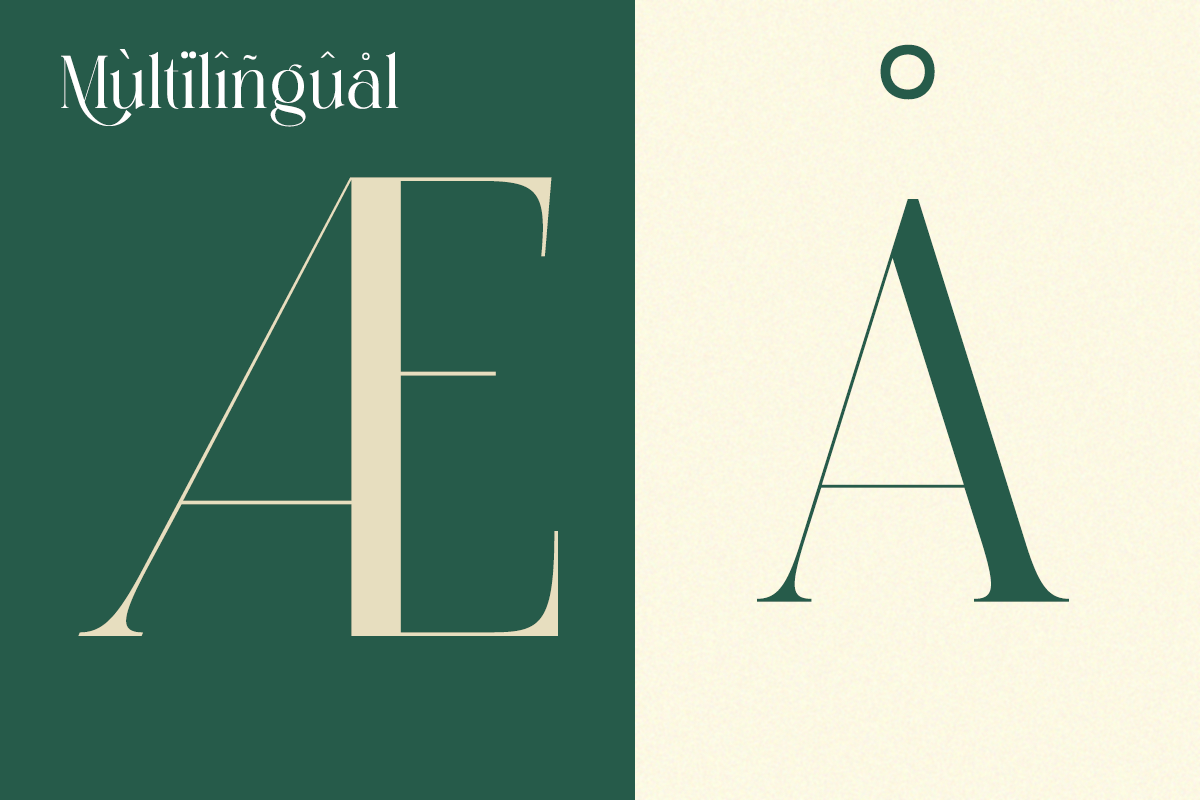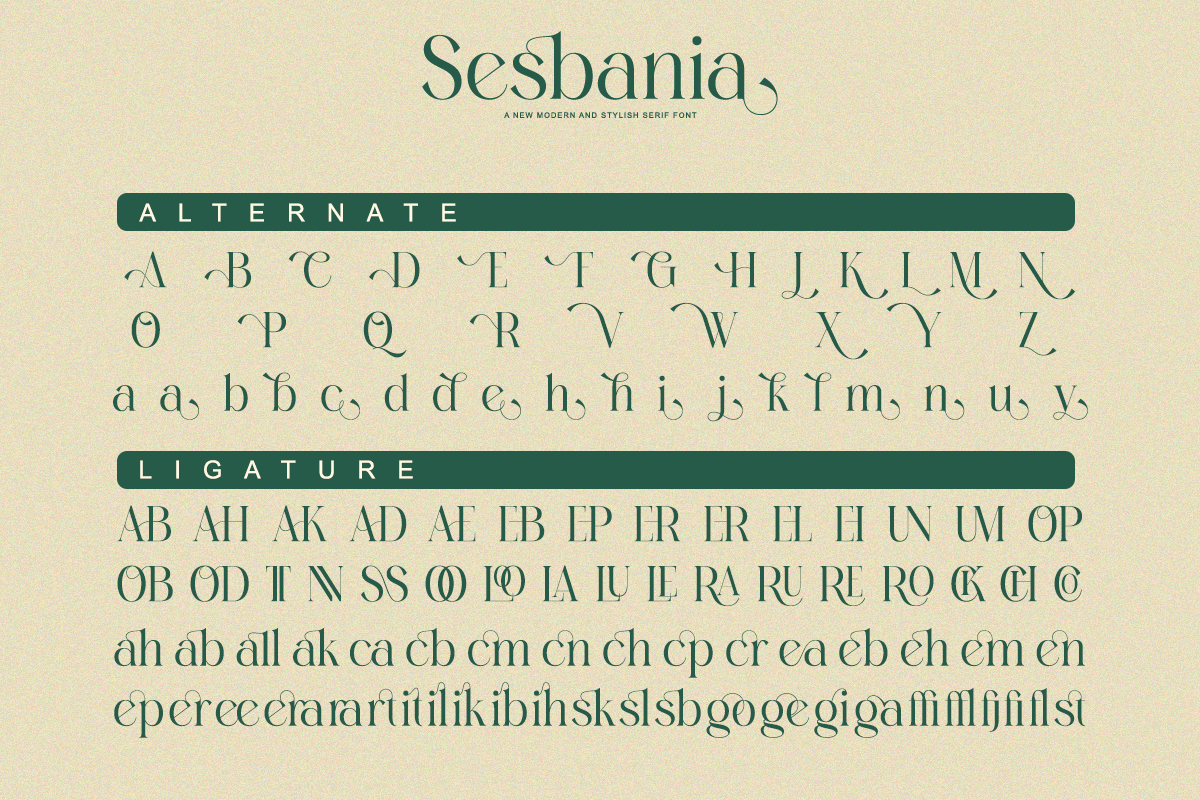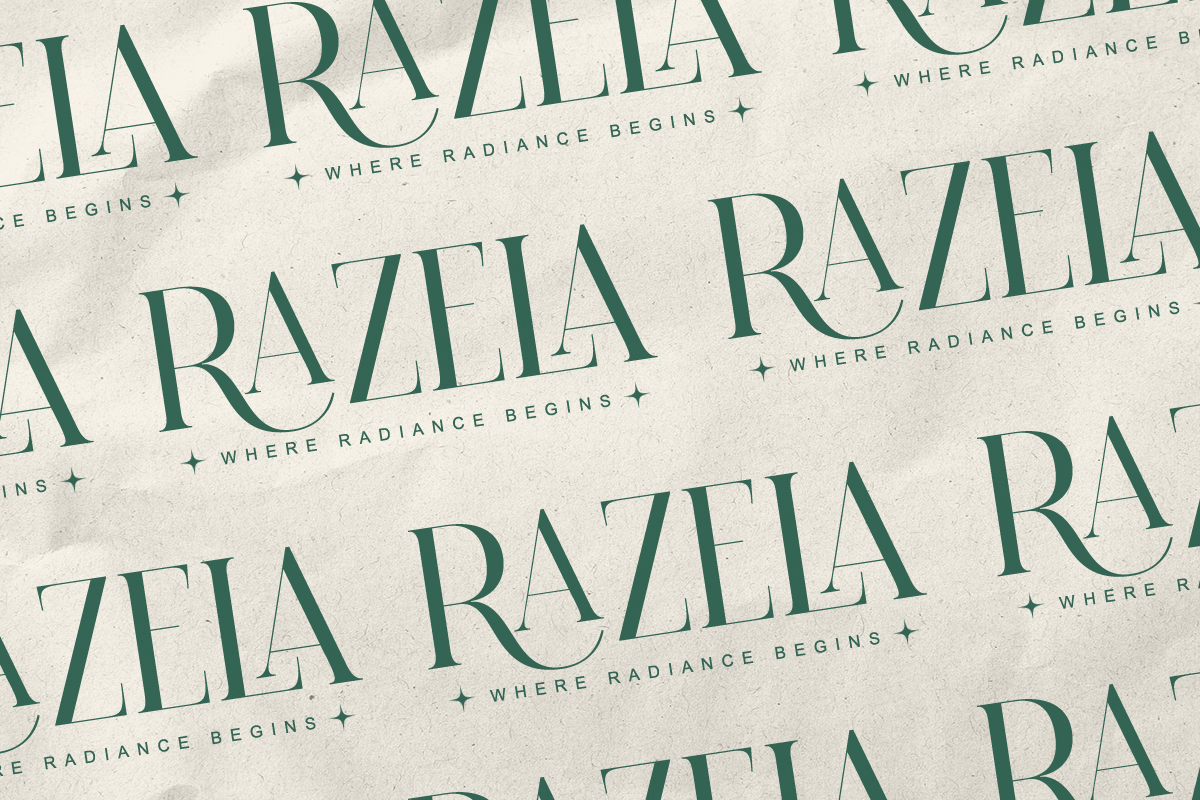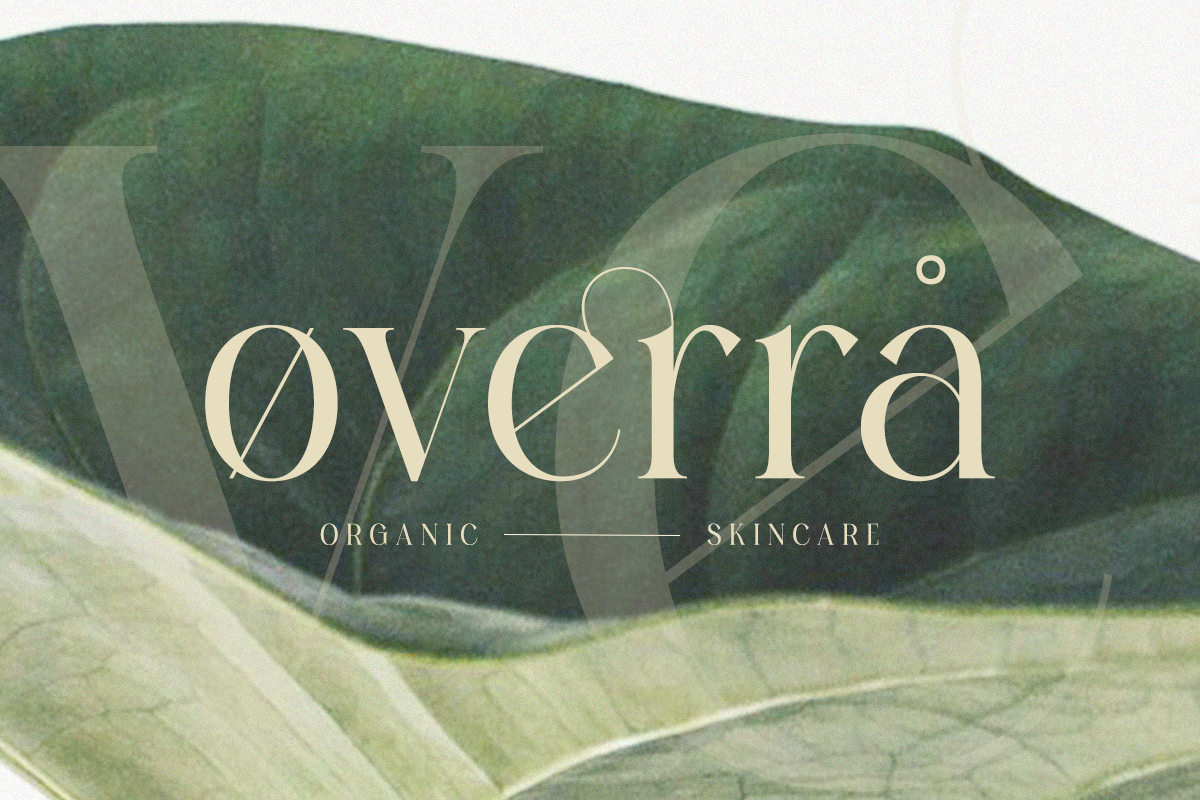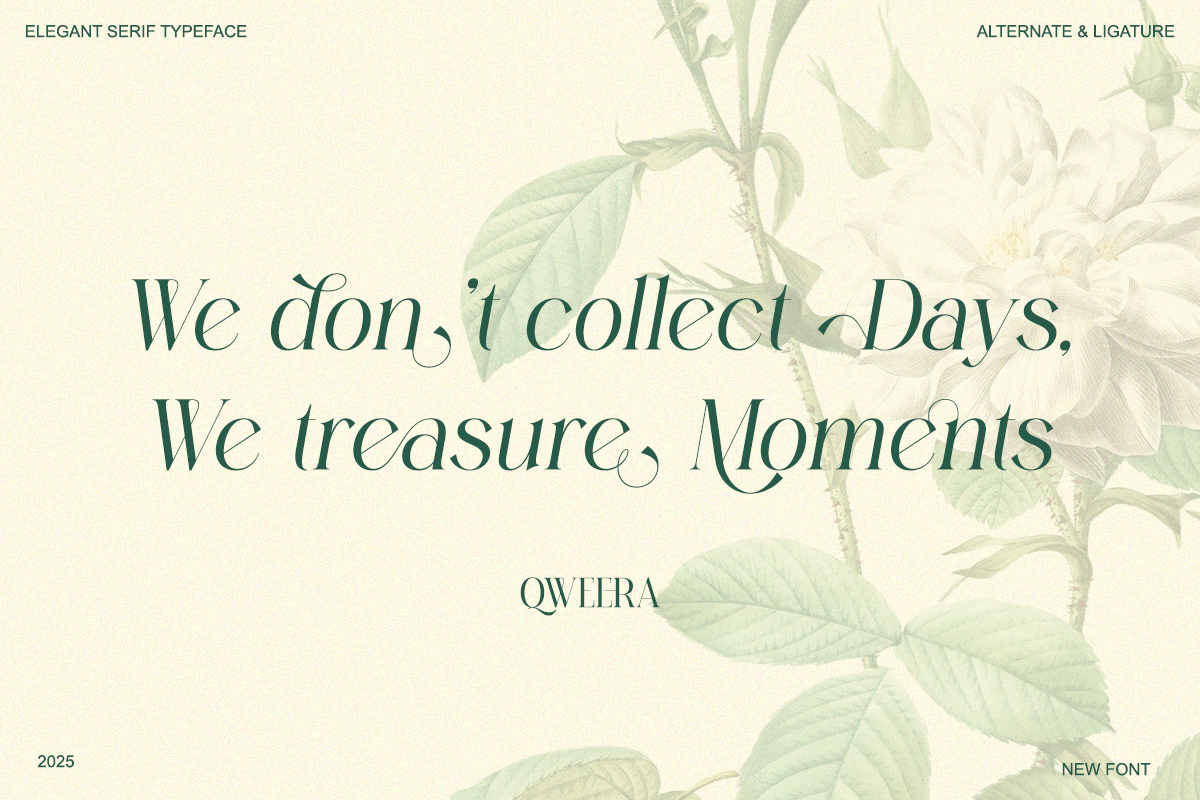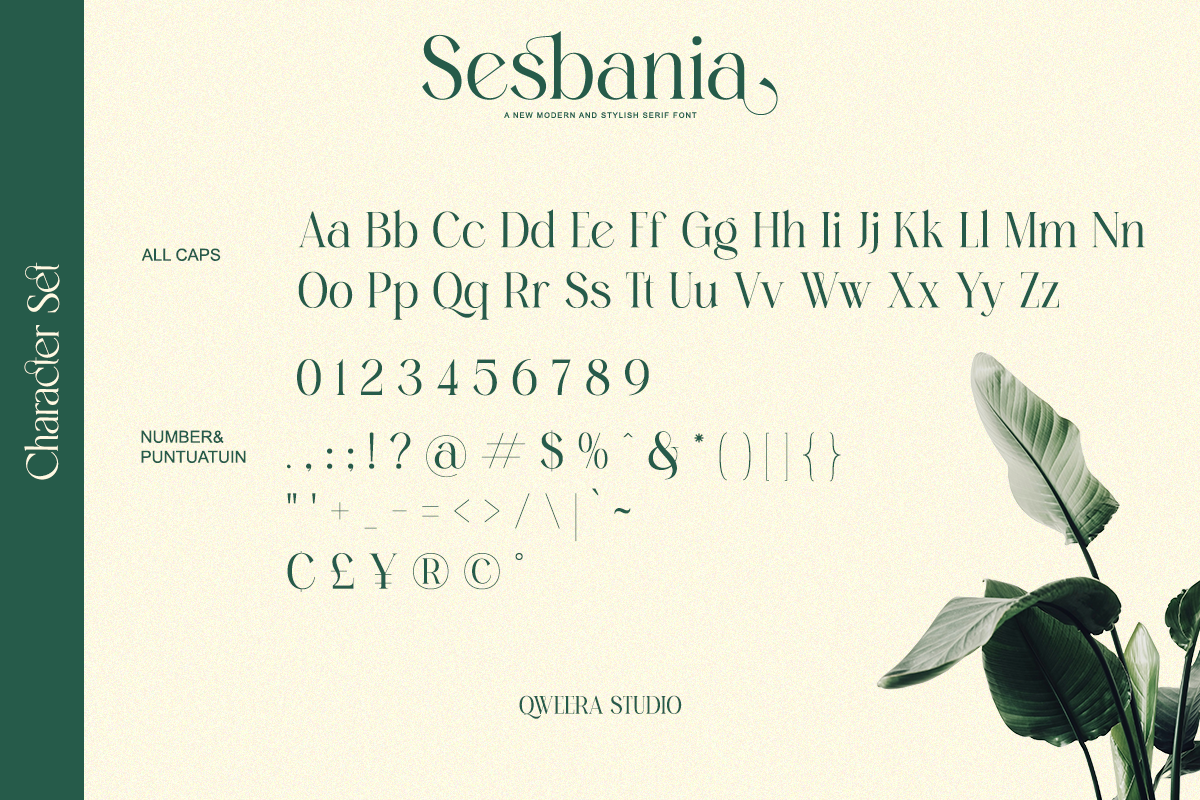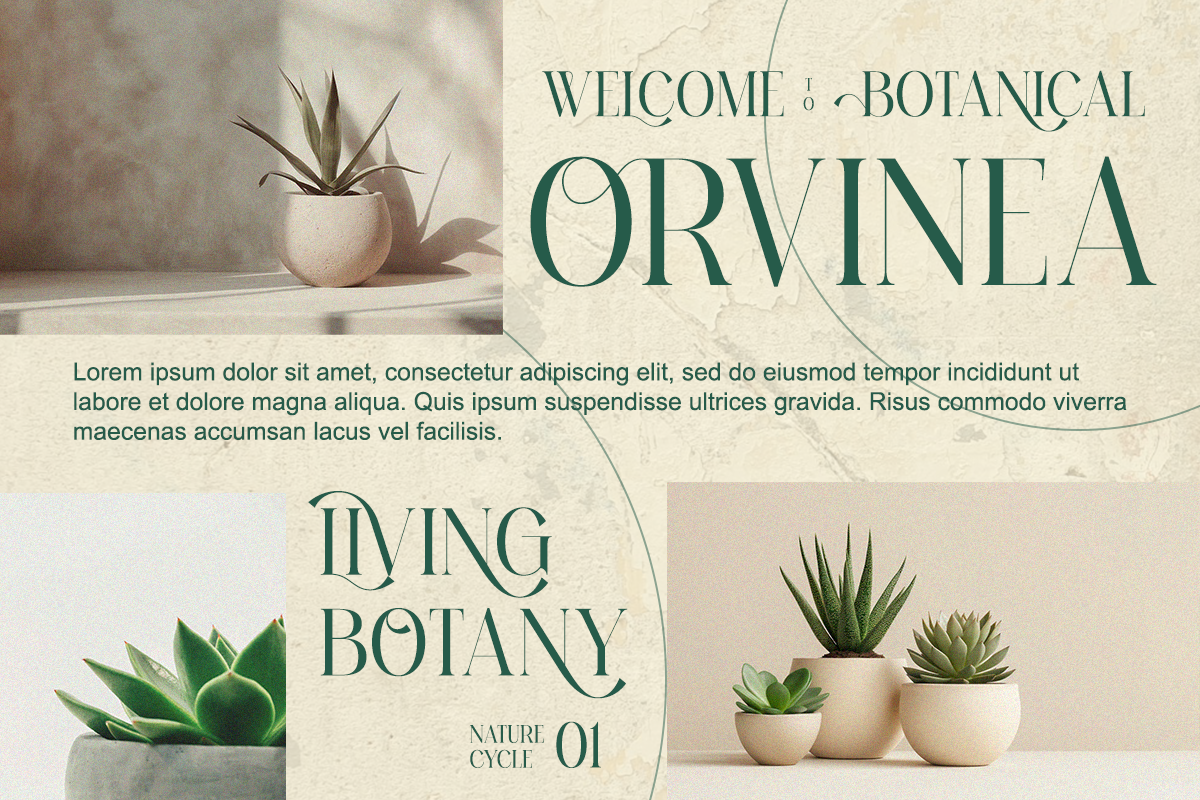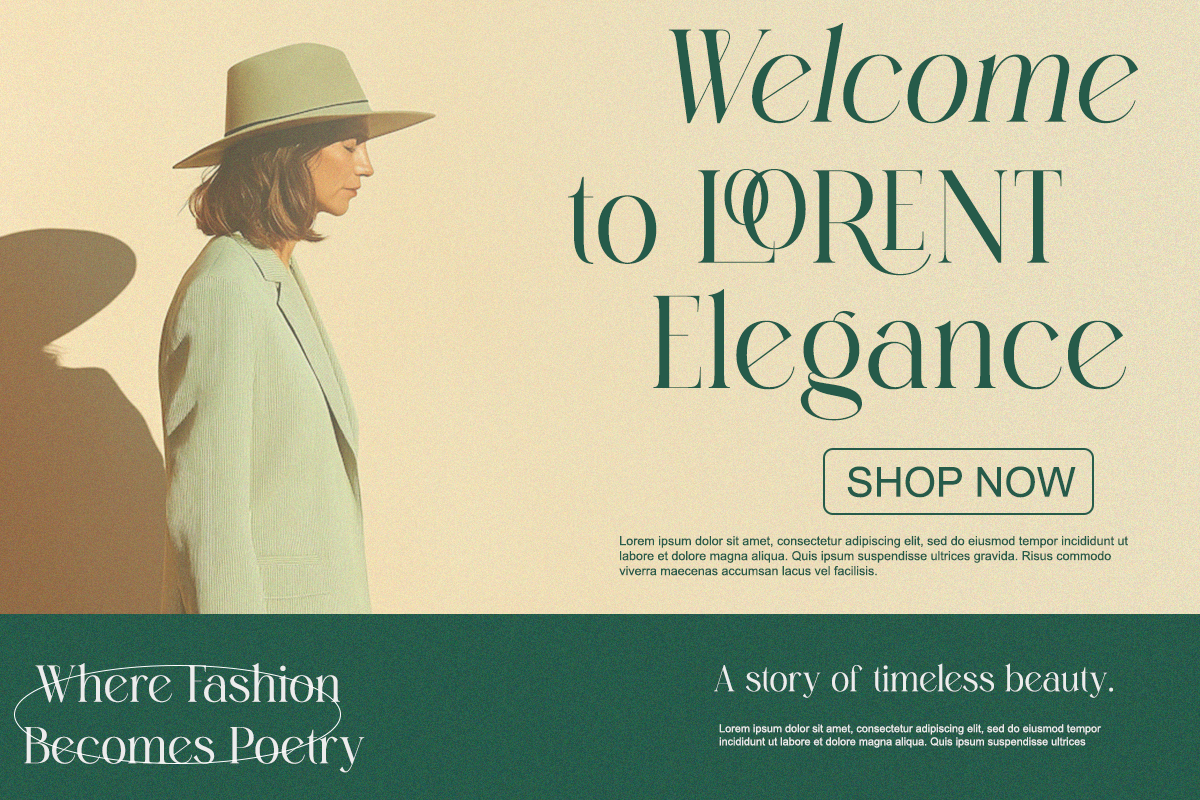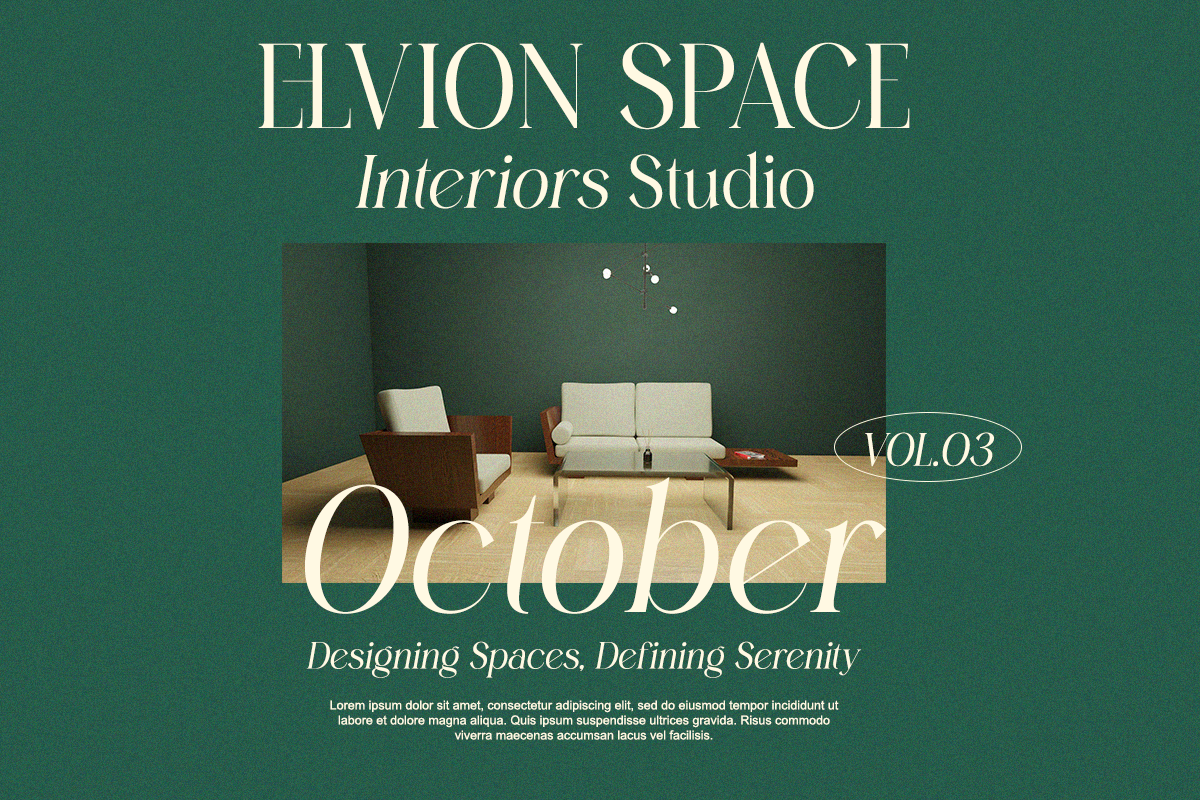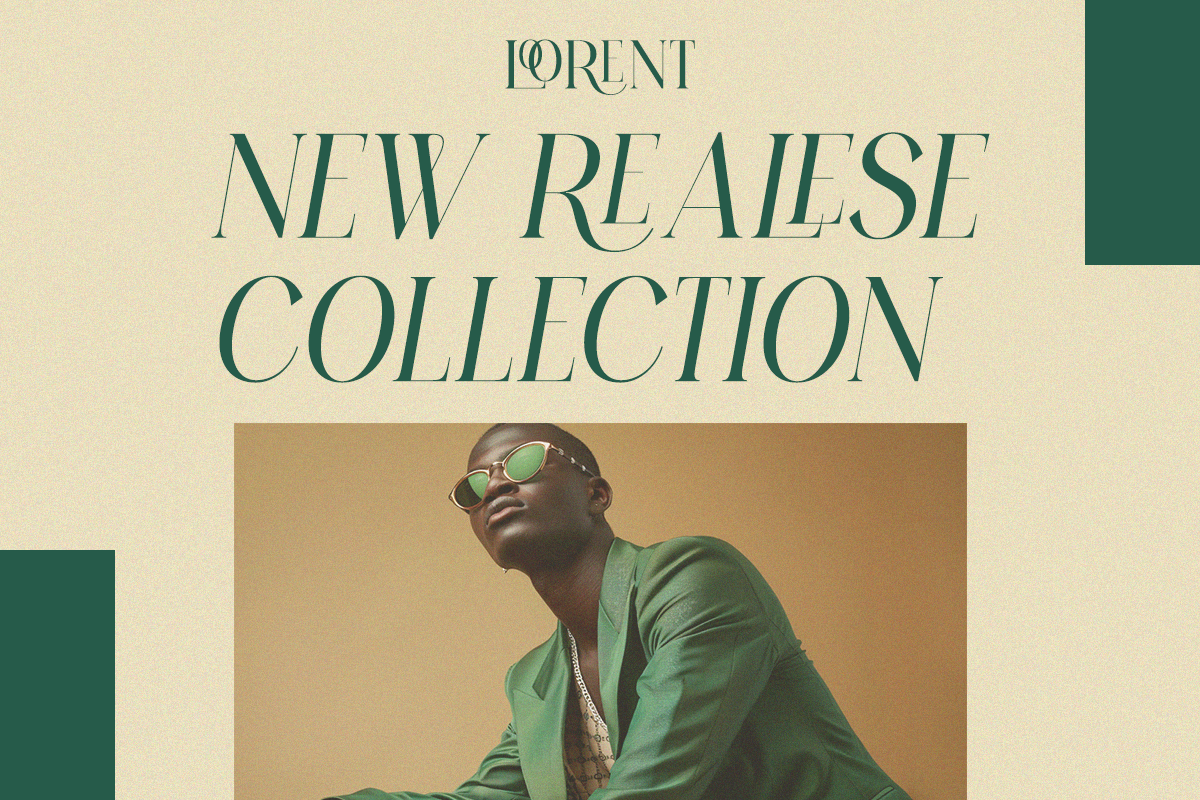
Sesbania - Modern Minimal Branding
Sesbania is a modern serif font inspired by natural balance and minimalist design. With clean curves, refined details, and subtle ligatures, it’s ideal for branding, fashion packaging, and editorial layouts. Perfectly combining sophistication and simplicity, Sesbania delivers modern elegance for every creative project.
- Regular & Italic
Perfect For: Brand identity, product packaging, editorial design, and eco-themed branding.